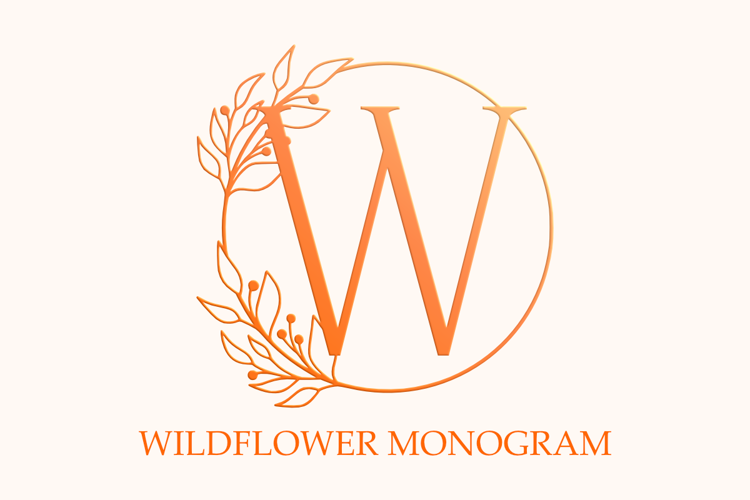
Wildflower Monogram Font
Wildflower Monogram is an elegant decorative font, with a beautiful wildflower circle ornament. Fall in love with its authentic feel and use it to create beautiful wedding invitations, beautiful artwork, engaging social media posts, and cute greeting cards.